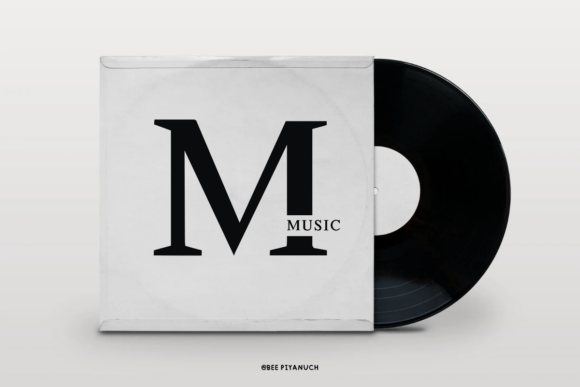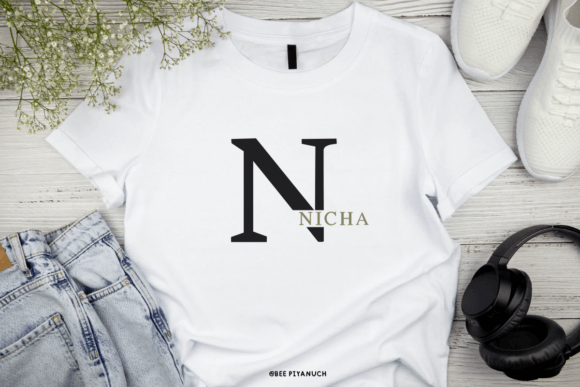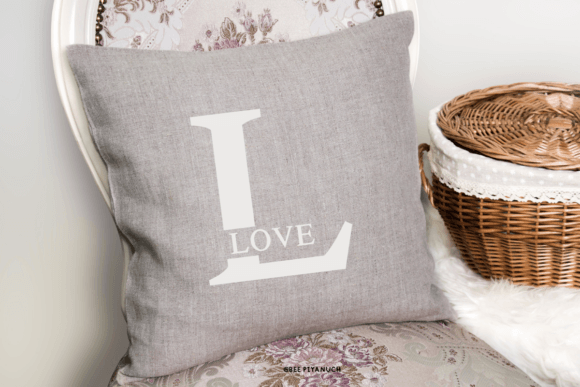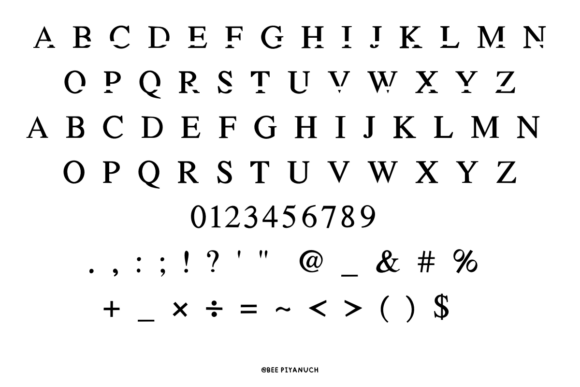
Fancy Monogram Font: Elevate Your Creativity with Elegance
In the realm of typography, a well-crafted font can make all the difference in elevating your creative projects from ordinary to extraordinary. Introducing Fancy Monogram, a uniquely decorative font designed to add an aesthetic touch to your creative universe. Whether you’re a designer, crafter, or simply a creative enthusiast, Fancy Monogram is the perfect addition to your toolkit.
The Versatility of Fancy Monogram
Fancy Monogram is more than just a font – it’s a versatile design element that can be used across a wide range of applications. From personal projects to professional endeavors, this elegant font is sure to make a lasting impression. Here are just a few ways you can utilize Fancy Monogram:
- Diary and Journaling: Add a touch of sophistication to your diary entries or journal pages with Fancy Monogram. Its decorative flair will make your thoughts and reflections stand out.
- Stationery and Greeting Cards: Create beautiful, one-of-a-kind stationery and greeting cards that will leave a lasting impression on the recipient. Fancy Monogram’s elegant design is perfect for special occasions, such as weddings, birthdays, and holidays.
- Banners and Signage: Make your banners and signage stand out with Fancy Monogram. Its unique design will draw attention and add a touch of elegance to any event or display.
- Merchandise and Apparel: Design captivating mugs, attention-grabbing shirts, and irresistible cards with Fancy Monogram. This font is sure to elevate your merchandise and apparel, making it perfect for craft fairs, online stores, or personal use.
- Social Media: Take your social media posts to the next level with Fancy Monogram. Add a touch of sophistication to your captions and graphics, making them more engaging and shareable.
The Magic of Fancy Monogram
So, what sets Fancy Monogram apart from other fonts? The answer lies in its unique design and versatility. This decorative font is crafted to add a touch of elegance and sophistication to any creative project. Its intricate details and flowing lines make it perfect for a wide range of applications, from formal events to personal projects.
Fancy Monogram is more than just a font – it’s a design element that can elevate your creativity and set your work apart. With its elegant design and versatility, you can use it to:
- Create stunning visual displays
- Add a touch of sophistication to your designs
- Elevate your brand’s visual identity
- Make your creative projects stand out
Tips and Tricks for Using Fancy Monogram
To get the most out of Fancy Monogram, here are a few tips and tricks to keep in mind:
- Experiment with different colors: Fancy Monogram looks stunning in a variety of colors. Experiment with different hues and combinations to find the perfect fit for your project.
- Mix and match with other fonts: Combine Fancy Monogram with other fonts to create a unique and visually appealing design.
- Pay attention to spacing: Make sure to adjust the spacing between letters and words to ensure that your design looks balanced and visually appealing.
- Use it sparingly: While Fancy Monogram is a beautiful font, it’s best to use it sparingly. Use it to highlight important information or add a touch of elegance to your design.
In conclusion, Fancy Monogram is a uniquely decorative font that can elevate your creativity and add a touch of elegance to your designs. With its versatility and range of applications, it’s perfect for designers, crafters, and creative enthusiasts alike. Whether you’re looking to create stunning visual displays, add a touch of sophistication to your designs, or simply make your creative projects stand out, Fancy Monogram is the perfect addition to your toolkit.